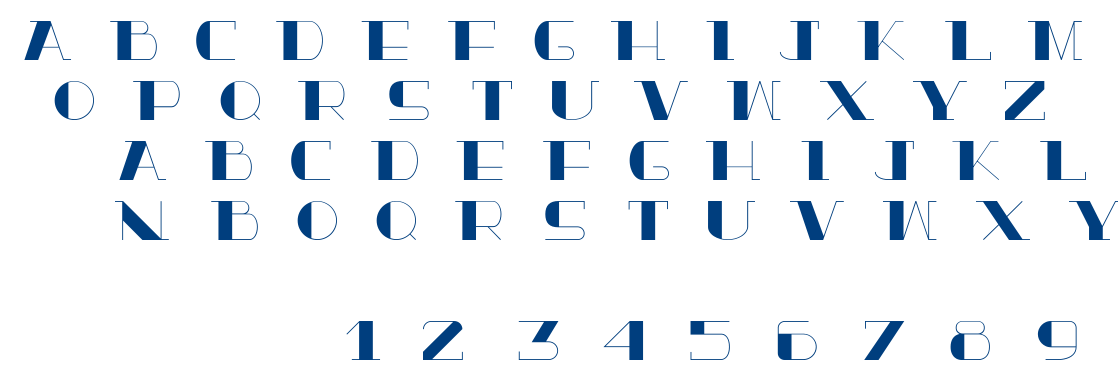
Tiny Small Medium Large TrueLove font Davelab Website TrueLove.ttf TrueLove-bold.ttf Download 15067 downloads Attribution CC BY Category: Fancy » Various This font is inspired by the old school tattoo typography. Only letters, numbers, dash and dot available. Character Map specimen sheet